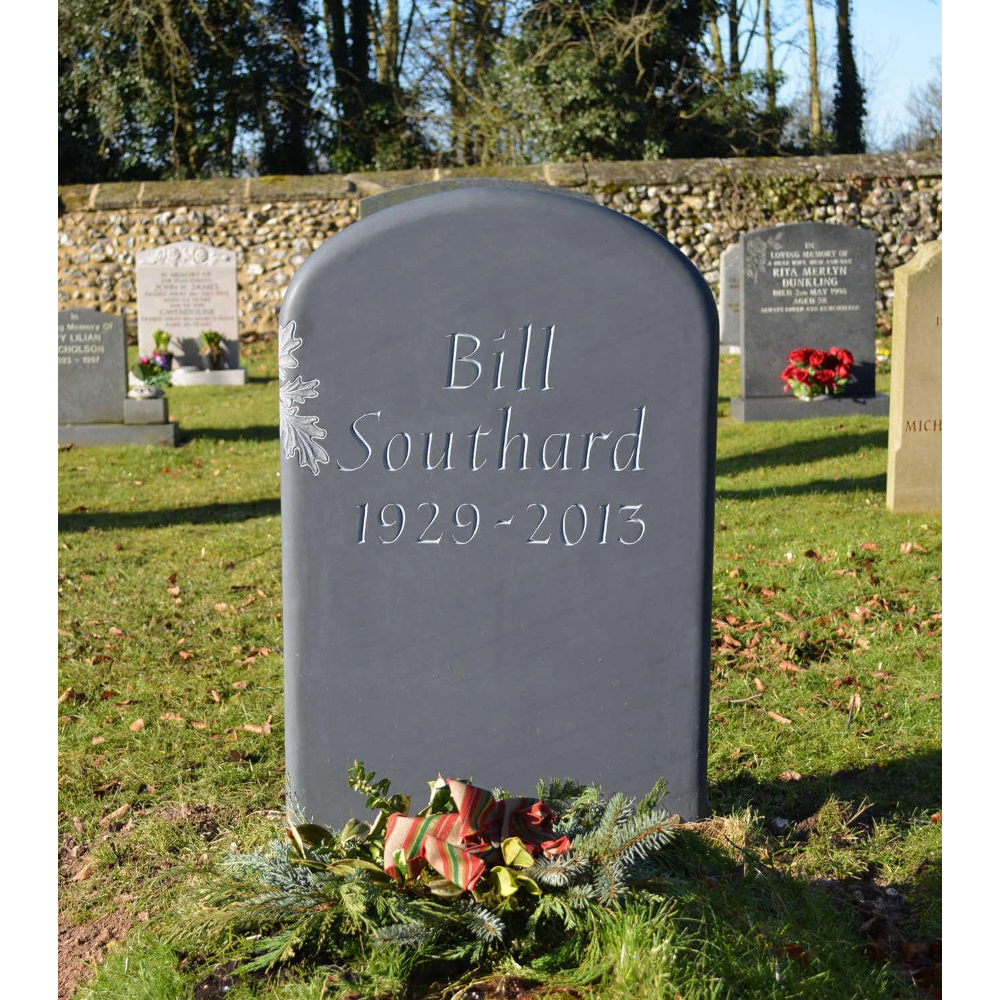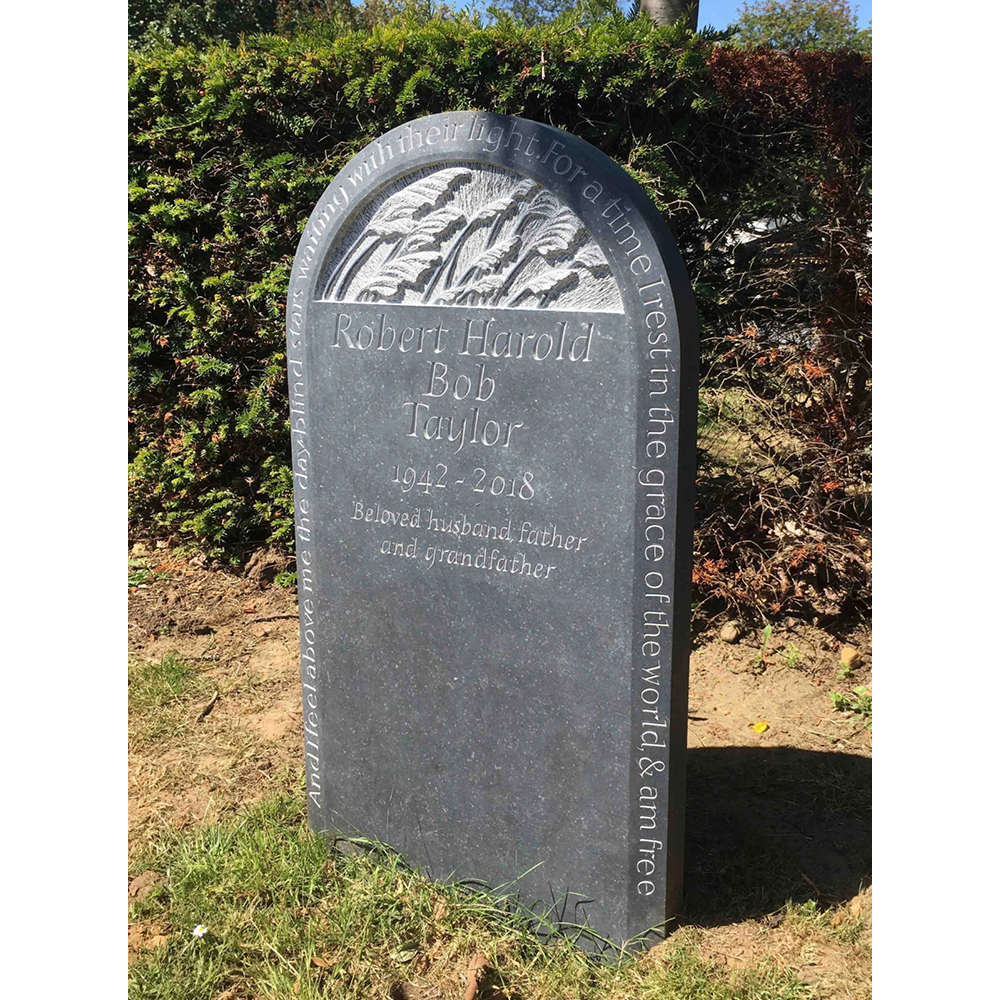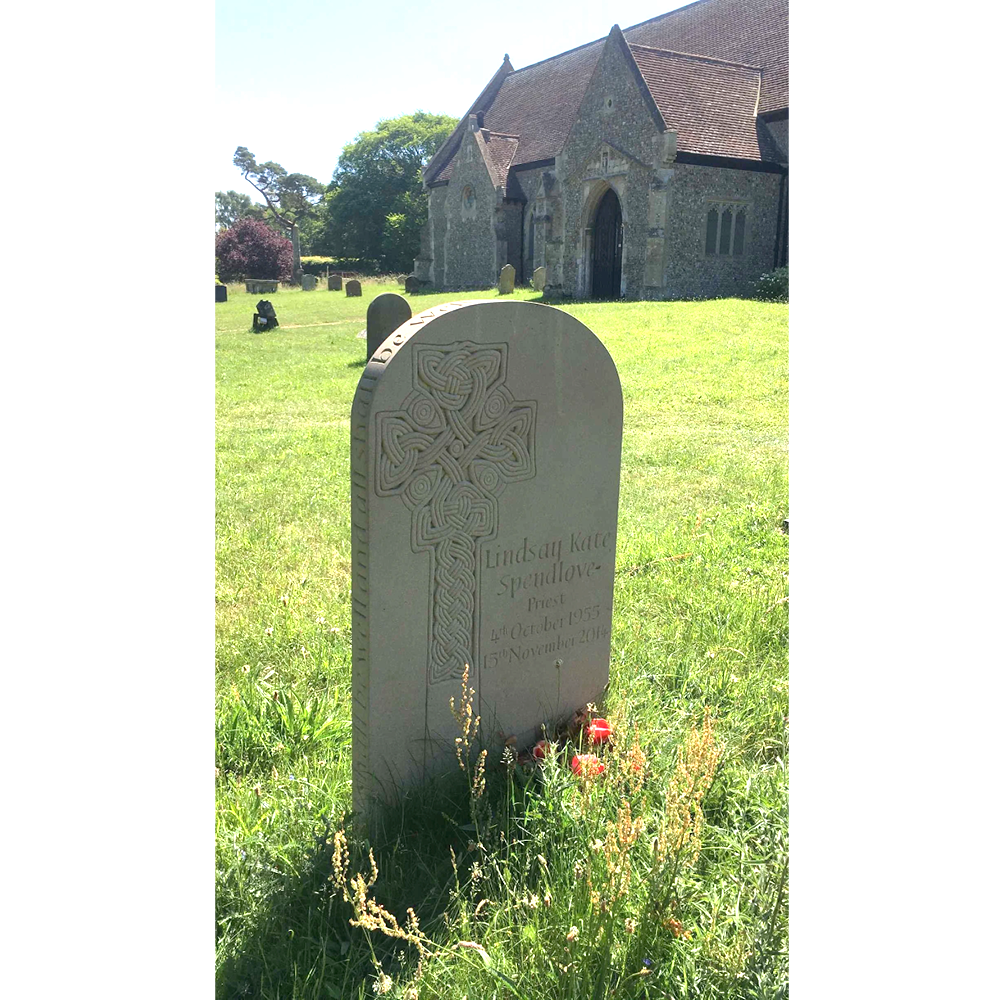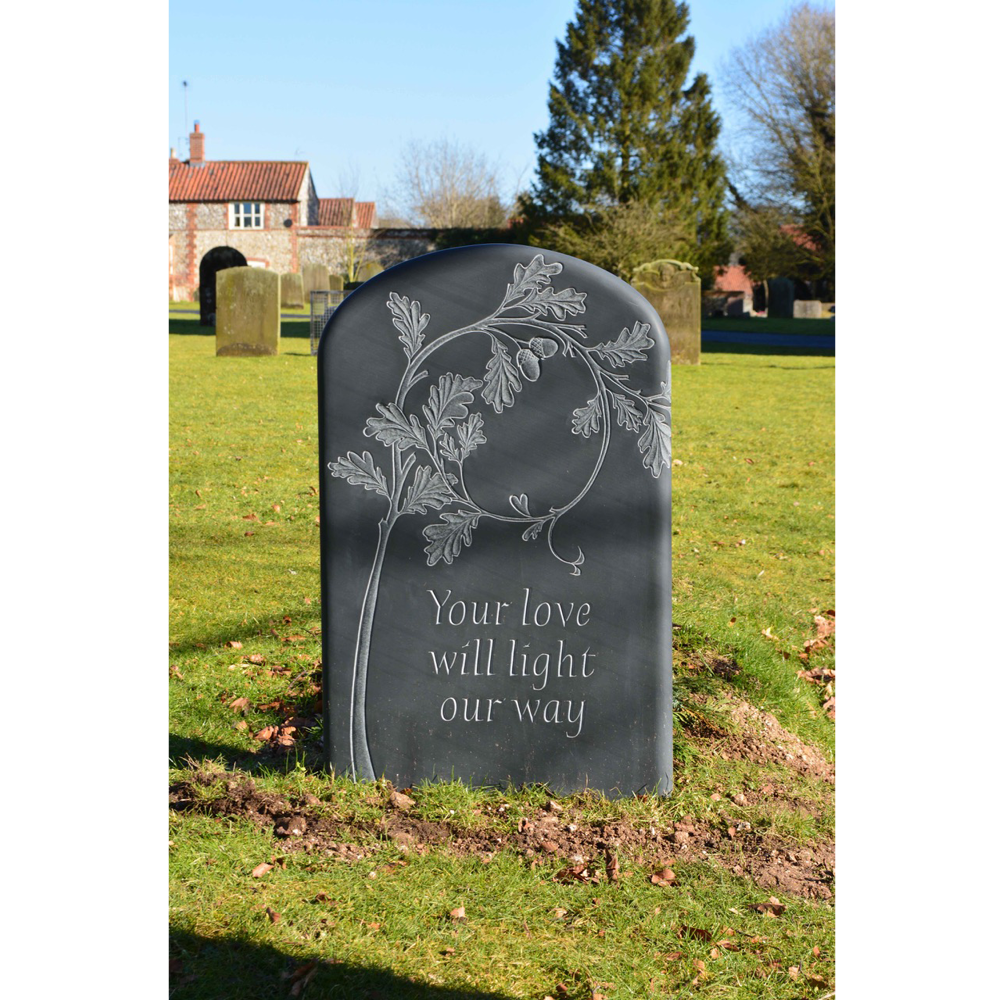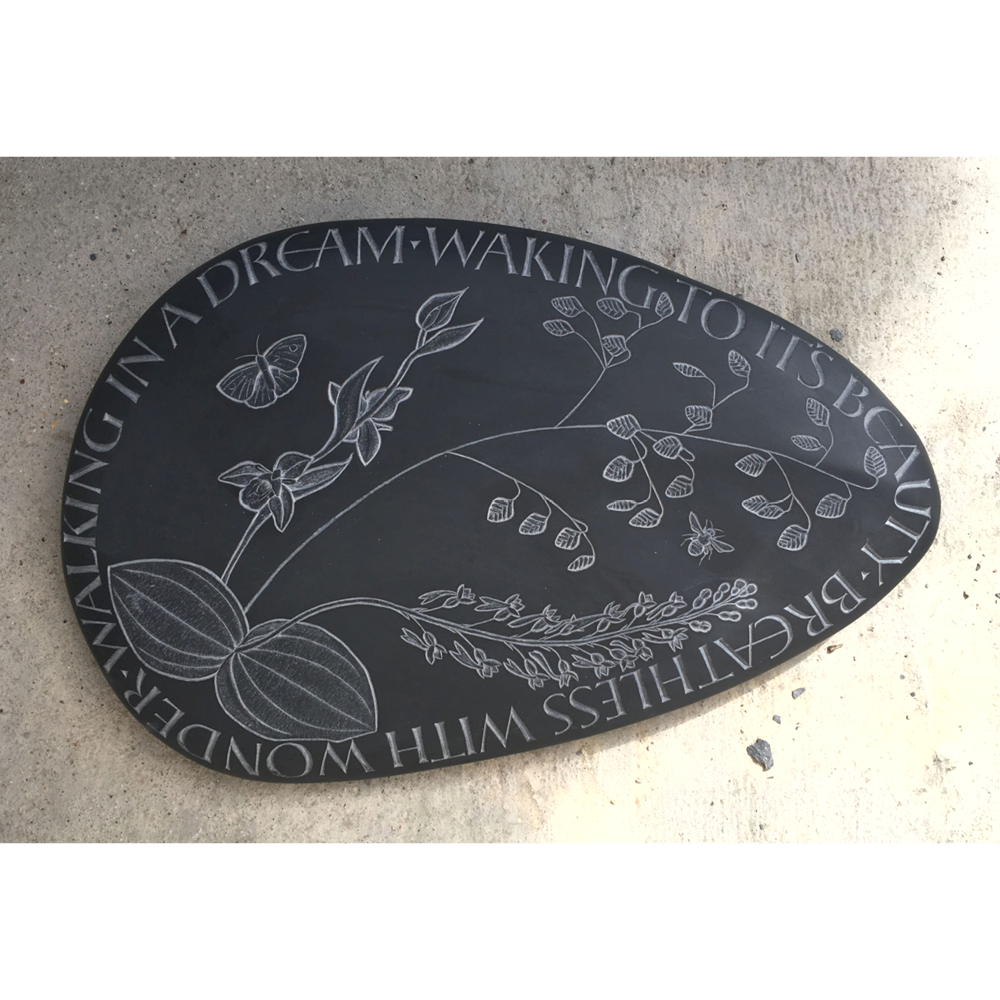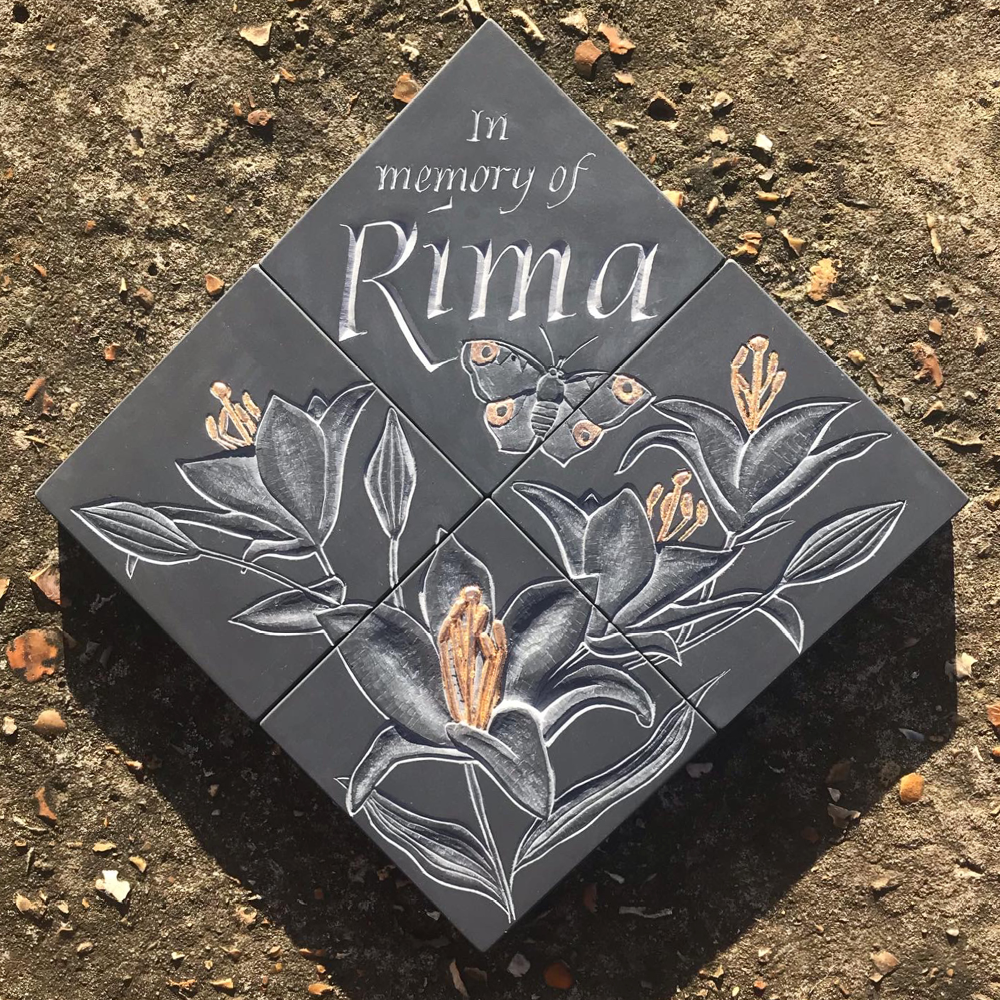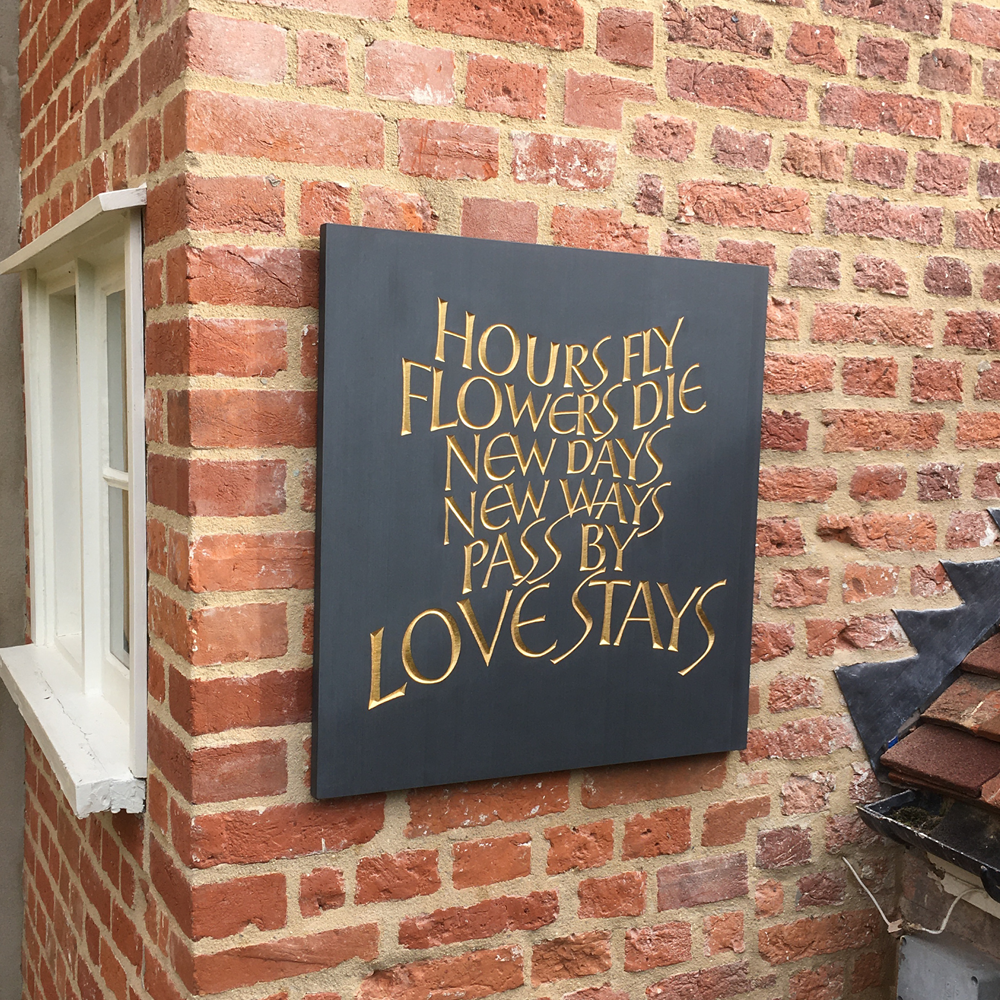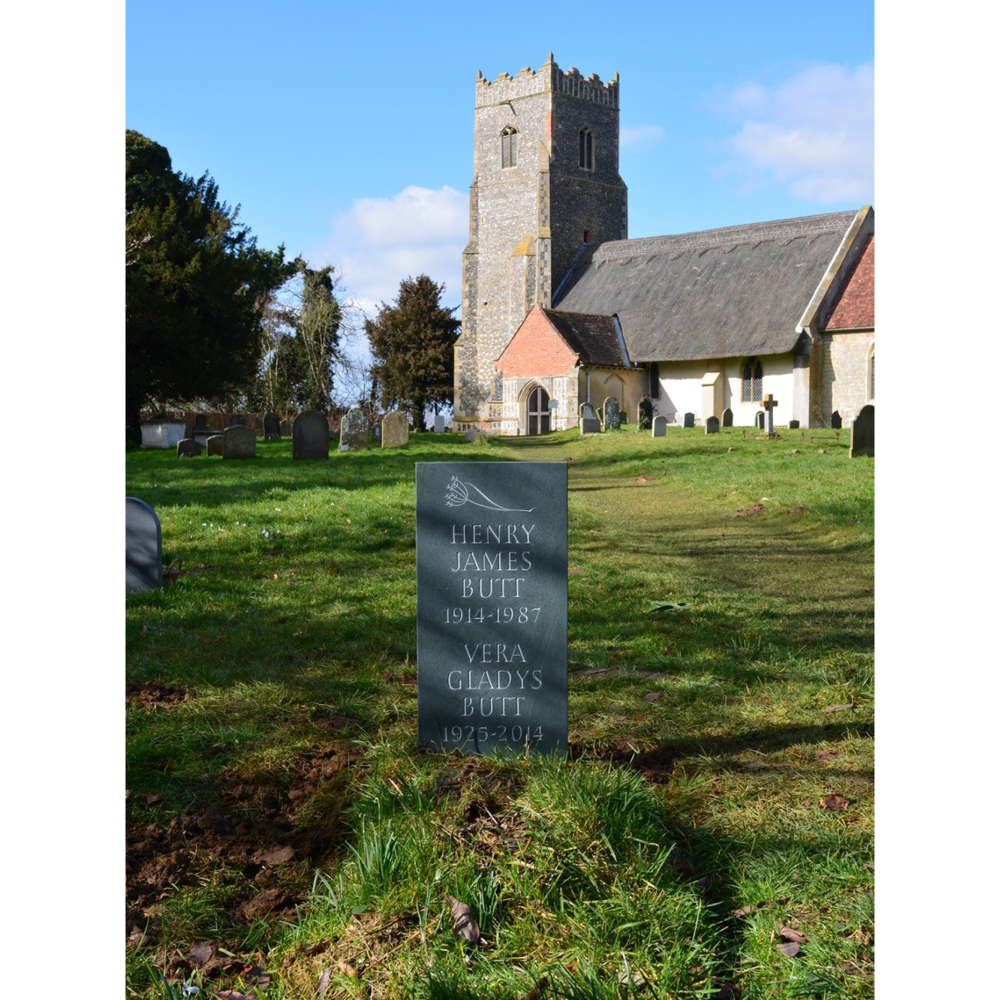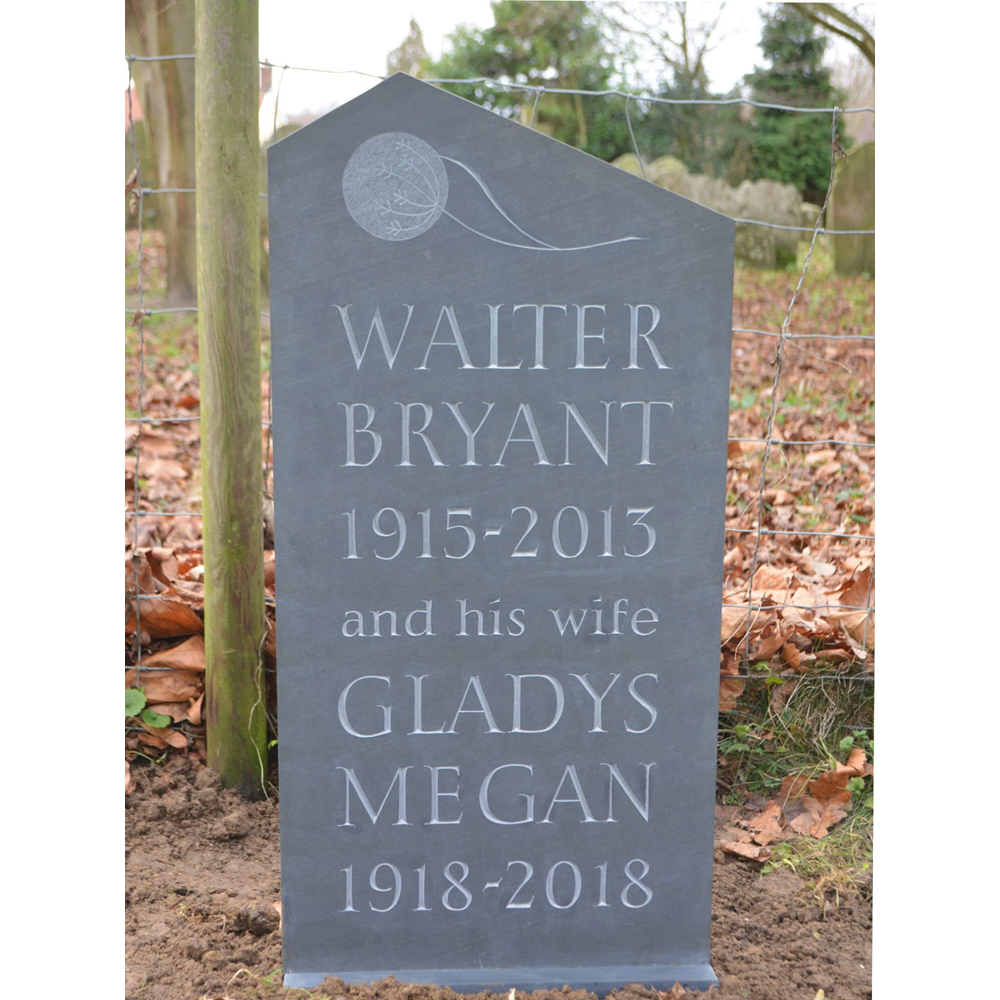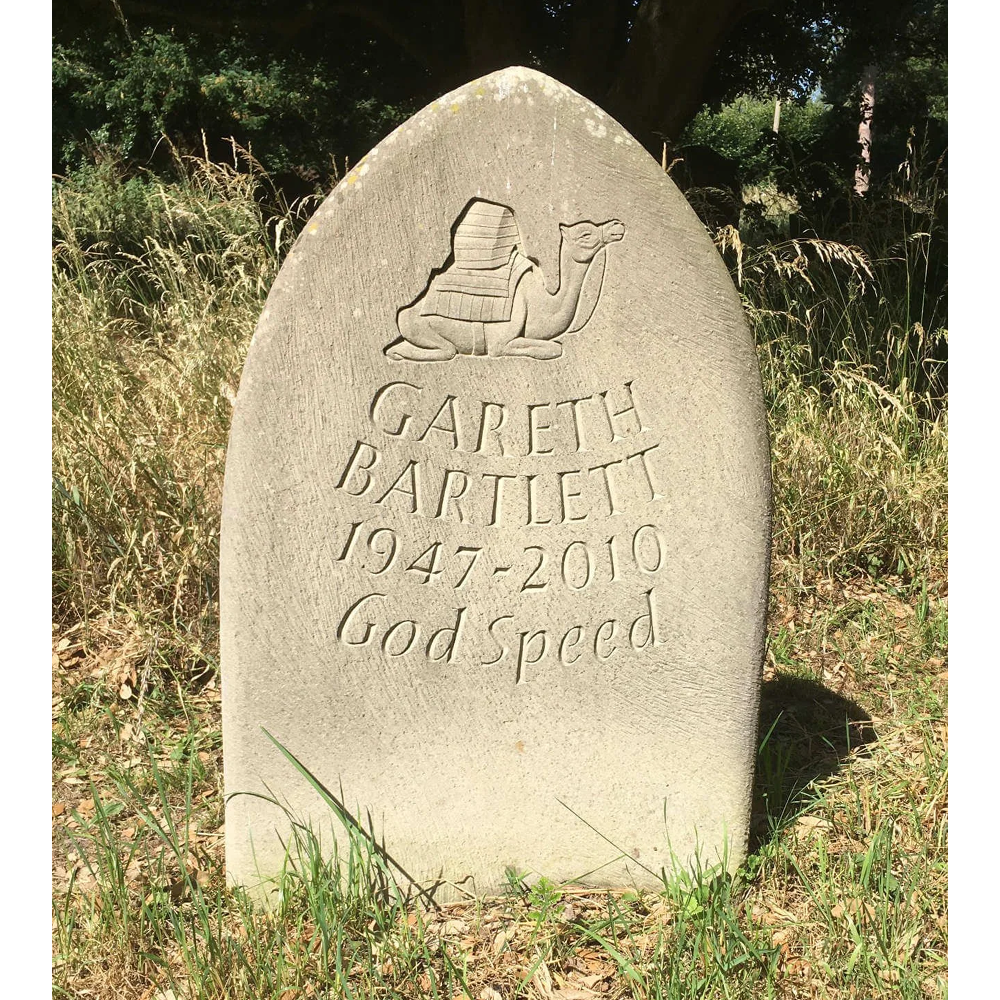
After training as a stonemason and carver in Weymouth in 1998, I worked as a stonemason in Herefordshire until 2005. I then moved to Norfolk to be an apprentice to Charlotte Howarth to learn the demanding art of lettering and letter carving.
Much of my work is designing and carving memorials to commission though I have designed and carved a Saint for Aldeburgh Catholic Church in Suffolk in recent years.
The pieces that I have worked on in stone and wood vary greatly in scale. I enjoy combining words and texture, and love making beautifully shaped objects from heavy, unforgiving materials. The text I choose is rarely well known, is preferably easy for others to relate to, and is often made up by me specifically for the piece of work. I love the way that the process of carving with a hammer and chisel can leave very distinctive marks in the stone, which can be used to create movement and flow.